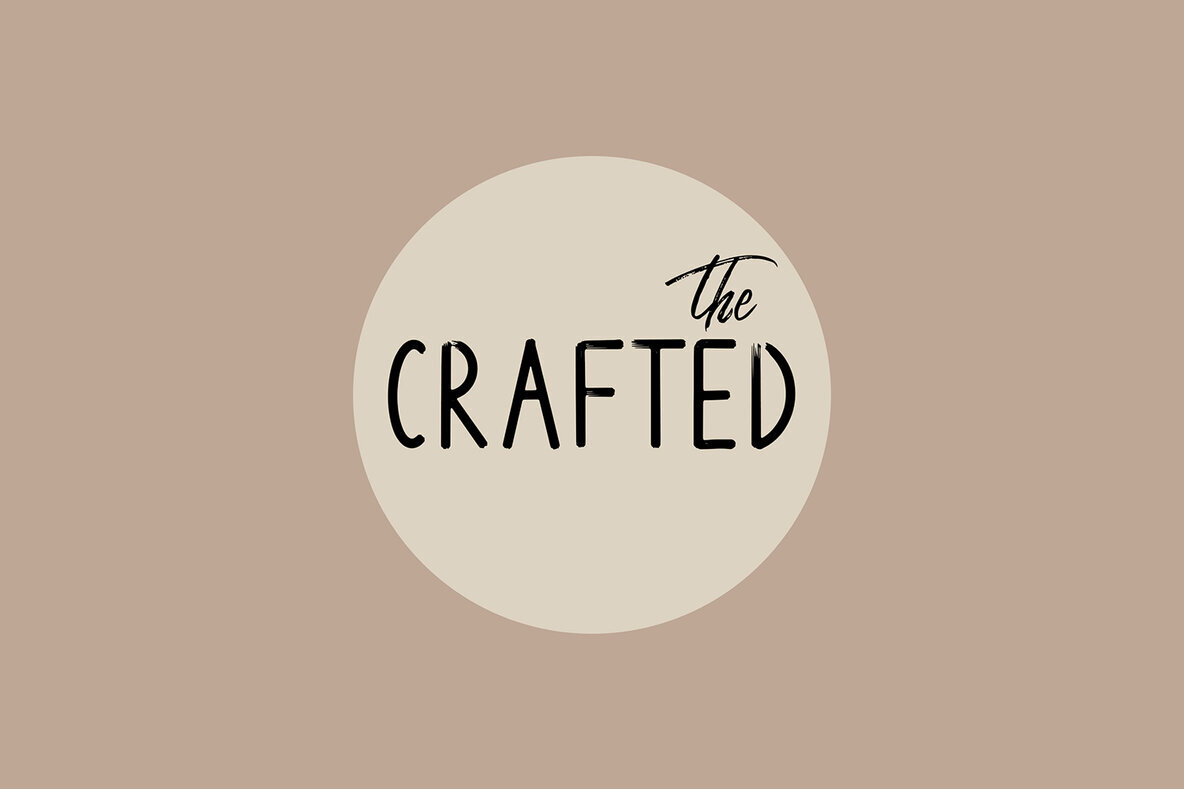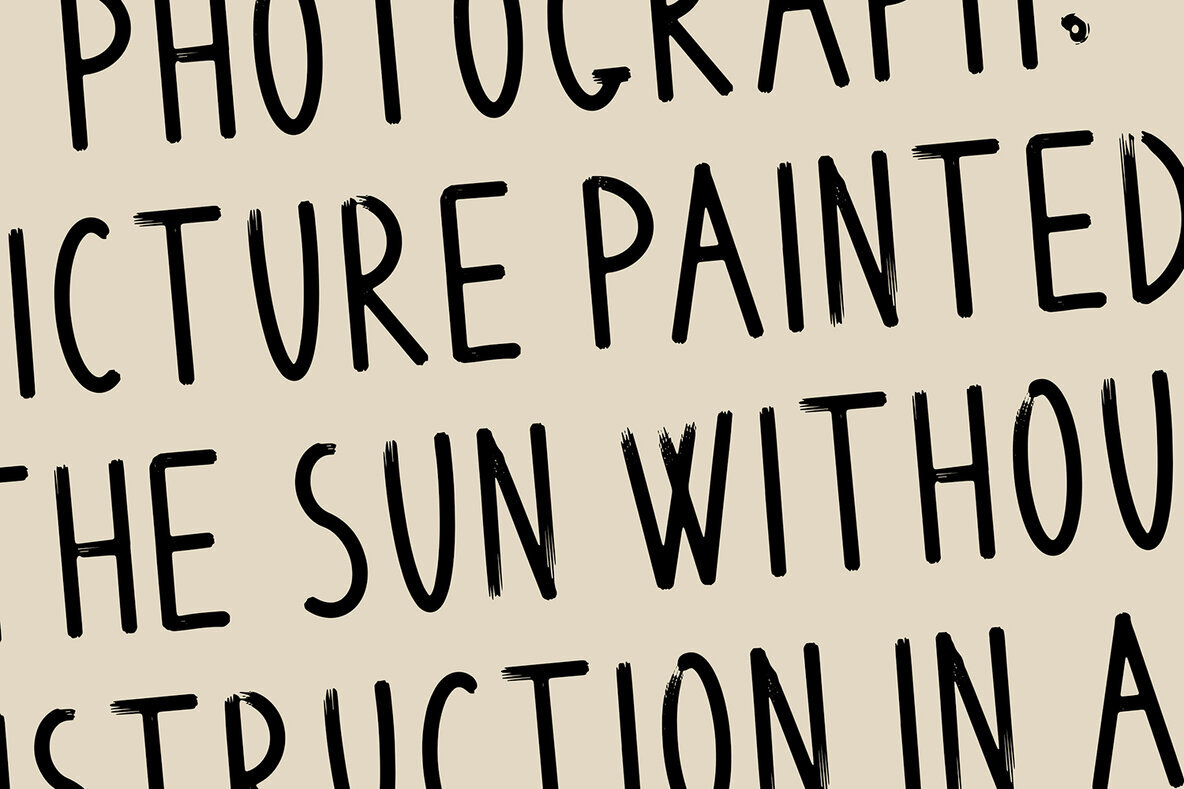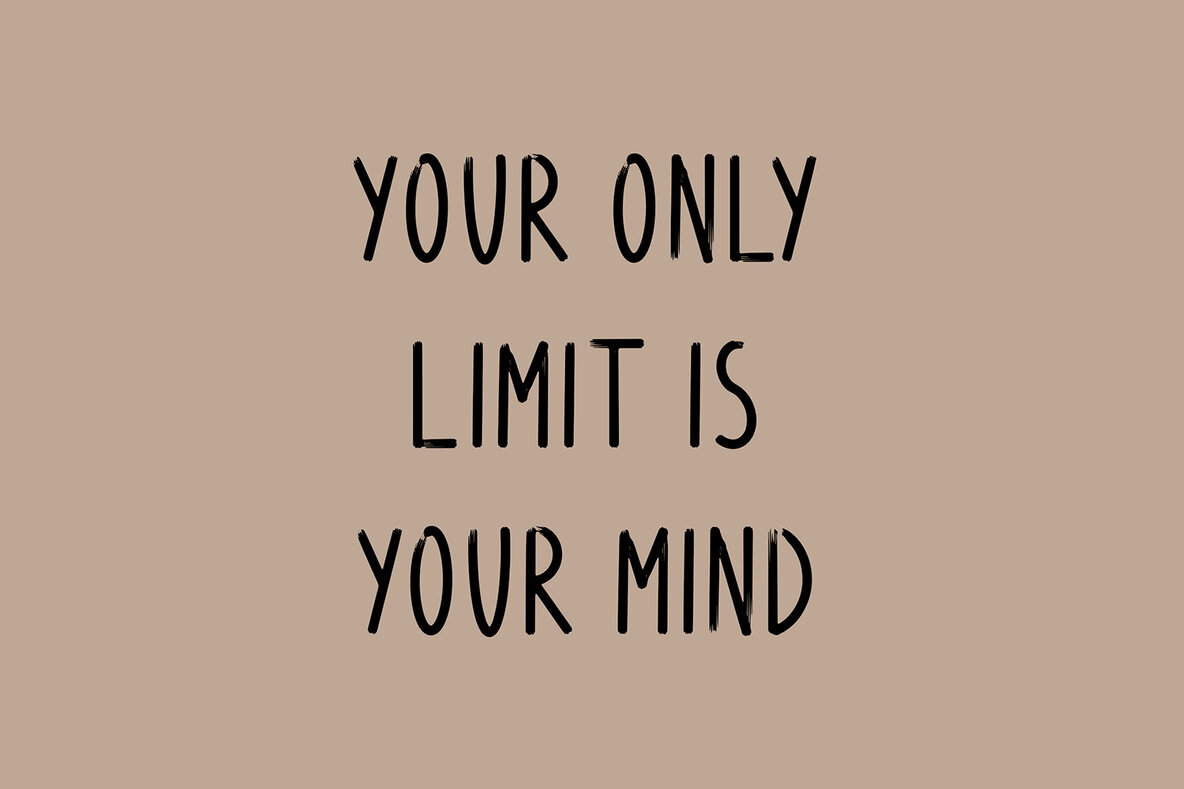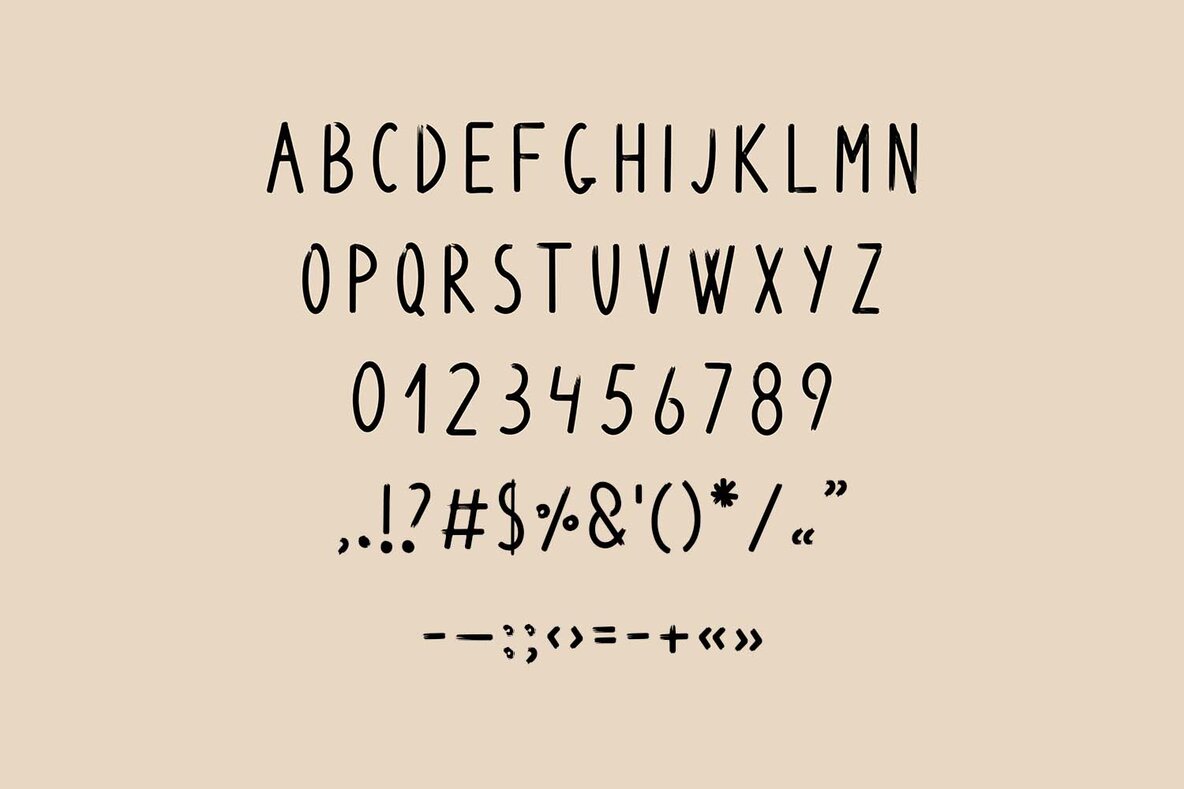
Woodland Font
Woodland
Woodland is a straightforward sans serif font designed for clarity and simplicity. Its clean lines and minimalist design make it an ideal choice for a wide range of digital and print projects. Whether you're working on web design, branding, or editorial layouts, Woodland provides a refined and unobtrusive look that enhances readability.
This font exclusively supports English, making it perfectly suited for projects that prioritize this language. Its uncomplicated style allows it to seamlessly blend into various design contexts, adding a subtle yet effective touch of professionalism.
Perfect for graphic and digital designers seeking a no-frills font solution, Woodland delivers both functionality and aesthetic appeal, ensuring your text stands out without overwhelming your overall design.